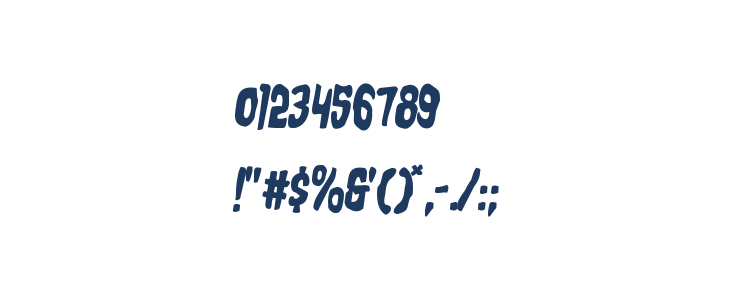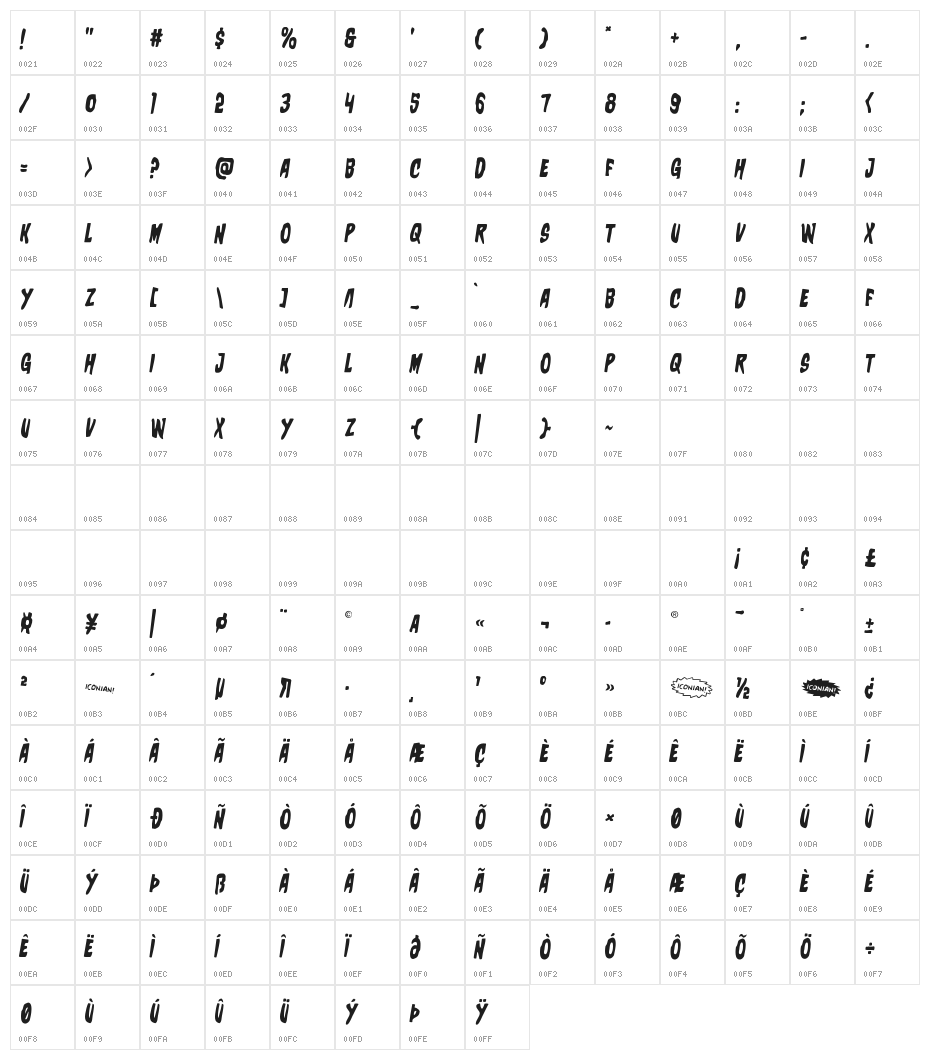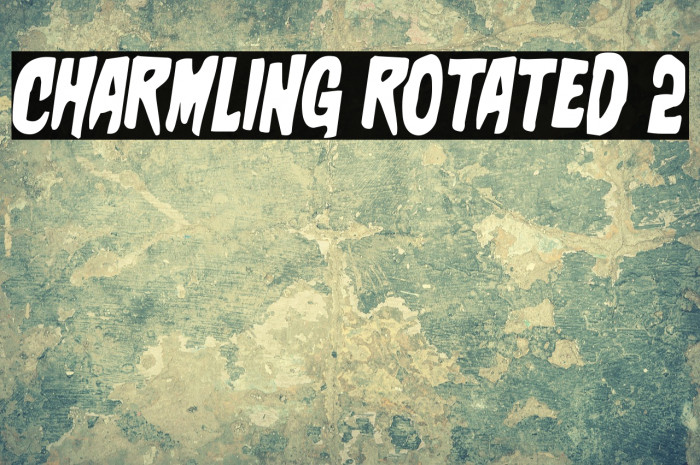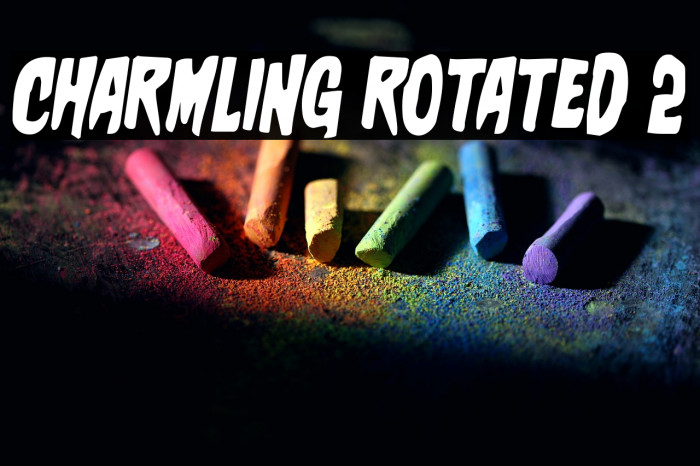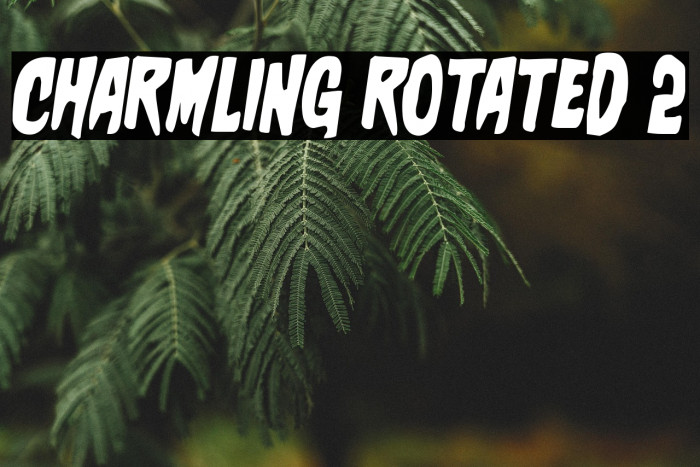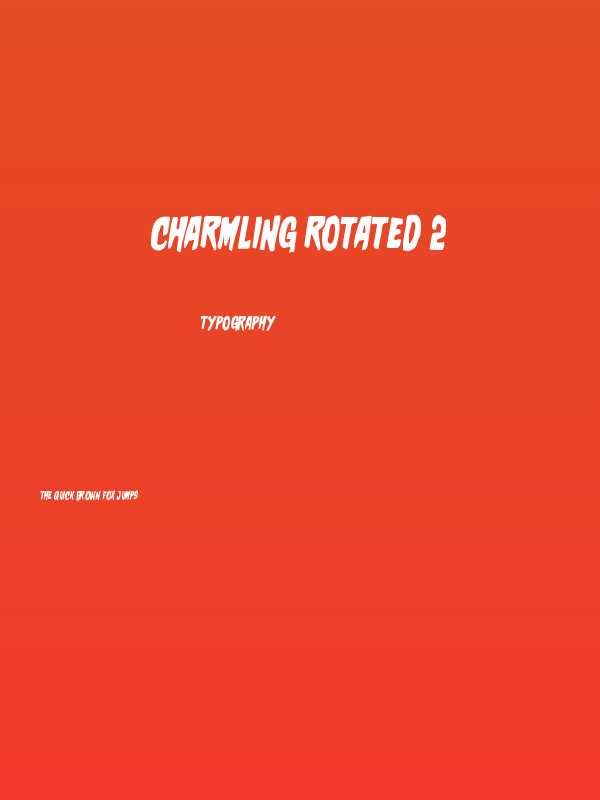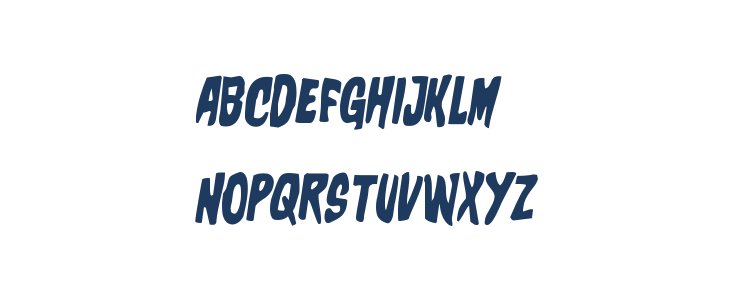
Charmling Rotated 2 Font
Charmling Rotated 2 Description
This font exhibits a bold and dynamic style with a playful and slightly irregular appearance. The characters are thick and have a hand-drawn quality, giving them a lively and energetic feel. The strokes are uneven, adding to the whimsical nature of the design. The uppercase and lowercase letters maintain a consistent style, with rounded edges and a slightly slanted orientation. The numbers and special characters follow the same aesthetic, ensuring a cohesive look across all elements. This font is well-suited for projects that require a fun and informal touch, such as children's books, playful branding, or creative posters.
| Overall Style | Playful, Energetic, Hand-drawn |
| Proposed Projects | Ideal for children's books, playful branding, creative posters, and informal designs. |